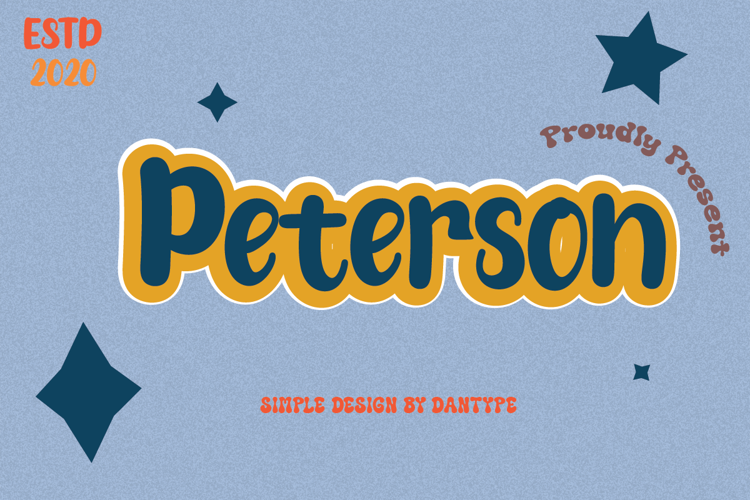
Peterson Font
Peterson Font is a Old English font and was created on . Peterson Font has been downloaded 609 times, added to 21 collections, and liked 0 times.